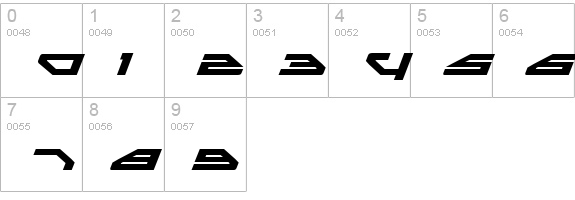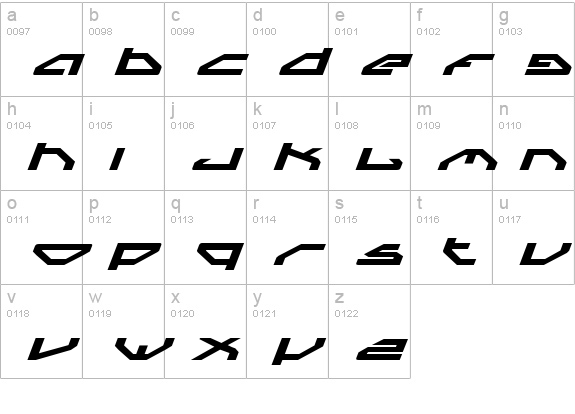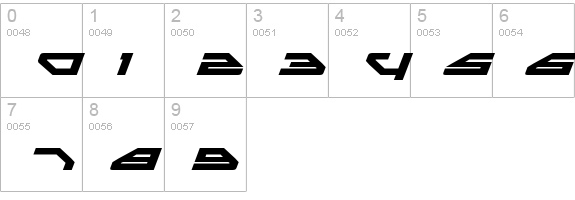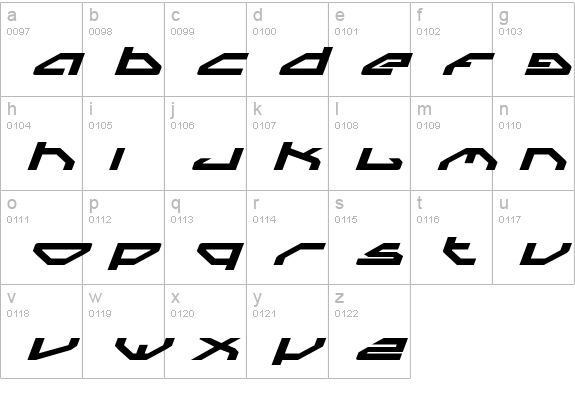
Spylord Bold Expanded Italic is a strong, high-contrast, extended-width, italic variant in the Spylord typeface family \xE2\x80\x94 well suited to headlines, attention-grabbing titles, and strong calls-to-action.
Spylord Bold Expanded Italic font is a bold and daring typeface that exudes power and sophistication. This font is perfect for projects that require a strong and commanding presence, whether it's for a logo, a headline, or a poster. The Expanded Italic design of Spylord Bold adds a unique twist to the classic bold style, giving it an extra touch of elegance and flair. It effortlessly combines boldness with italicized strokes, creating a visually striking effect that is sure to capture attention. With its sleek and modern appearance, Spylord Bold Expanded Italic font is ideal for a wide range of applications, including advertising, branding, and editorial design. Its versatility allows it to easily adapt to various design themes and concepts, making it a must-have for designers seeking to make a bold statement. One of the best features of Spylord Bold Expanded Italic font is that it is freely available to download at FontsMarket.com. This means that you can enjoy the benefits of this remarkable font without any cost. Its availability for free makes it an even more attractive choice for designers and creatives who are working on tight budgets or simply looking to explore new possibilities. Whether you need to create eye-catching headlines, design attention-grabbing posters, or give your branding a powerful edge, Spylord Bold Expanded Italic font is the perfect choice. Its boldness, elegance, and availability make it a valuable addition to any font library. So why wait? Head over to FontsMarket.com and get your hands on this amazing font today.